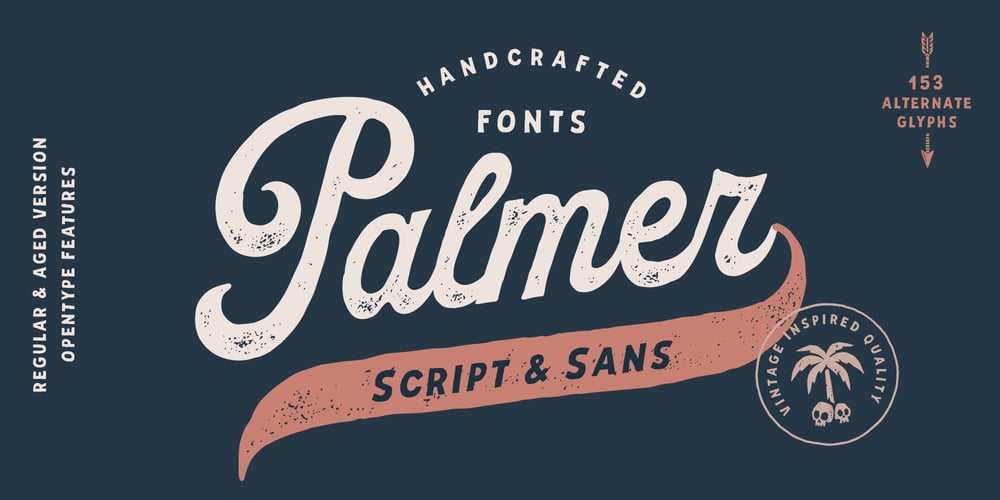
AS Palmer Font Family was designed by Andrey Sharonov and published by Andrey Sharonov. AS Palmer contains 4 styles and family package options. AS Palmer Script & SansThis pair was inspired by the spirit of the past, when manual labor was common, and technology was just beginning to develop. It was crafted by hand specially for traditional typography lovers and anyone who want to add natural handmade feeling in brand identity. It comes with Regular and Aged versions that expands its posibilities in use. Opentype featuresScript font has 151 stylistic alternates and 3 variations of end-swashes with about 10 lengths of each style.Stylistic Alternates.The easiest way to get alternate character is to add number for example 2, 3 or 4 after any Uppercase. Each of them has from two up to five alternates. This combination works with activated Standard Ligatures option in Opentype panel (Photoshop / Illustrator).End-swashes.AS Palmer Script has 3 variants of end-swashes and about 10 lengths of each style. It works like Stylistic Alternates with activated Standard Ligatures in Opentype panel. Just add special combination at the end of the word, to get needed swash element and its length. Underscore, double underscore or slash is swash style. Number is length. For example: _3, __5, /6. Just try, it’s easy.AS Palmer Sans – different Double letters.This feature work automatically with activated Contextual Alternates in Opentype panel.Note, that this features are not available in Miscrosof Word.Palmer is very good looking in logo, labels, t-shirt prints, product packaging, invitations, advertising and others. I’ve designed some examples, so you can see how it can be used. Multilingual support (Western European characters). English, Danish, Dutch, Estonian, Faroese, Filipino, Finnish, French, German, Hungarian, Icelandic, Irish, Italian, Norwegian, Polish, Portuguese, Spanish, Swedish, Turkish.